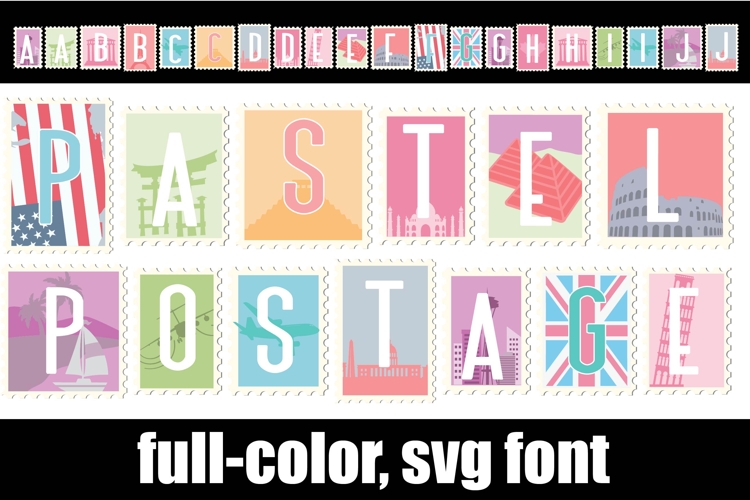
Pastel Postage Color Font
This full-color, sans serif font has travel themed postage backgrounds. There is an alt case of additional colors of each letter that you can access through your system's character map.